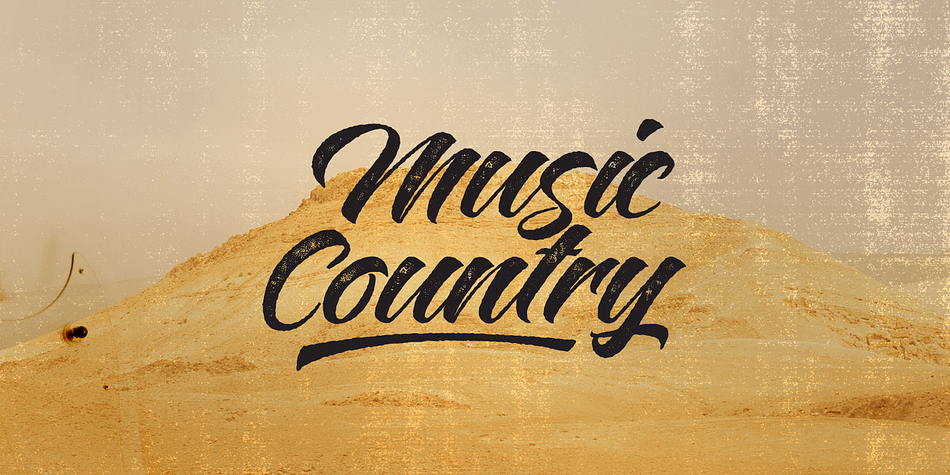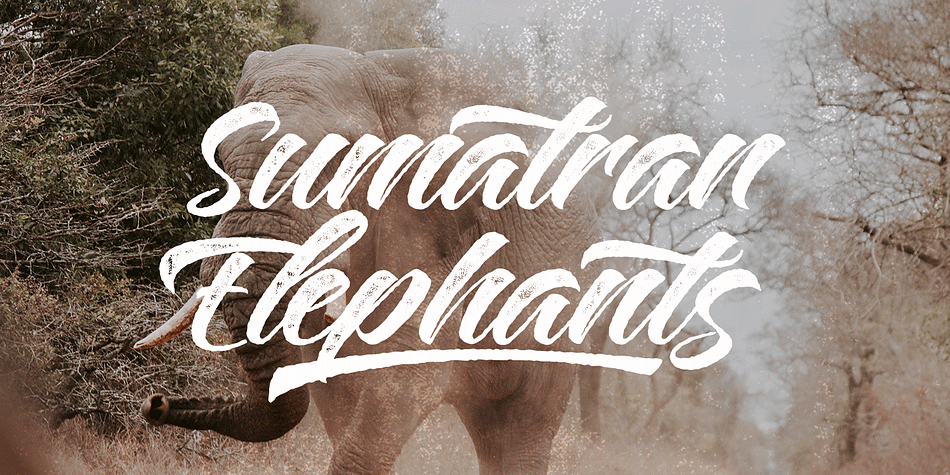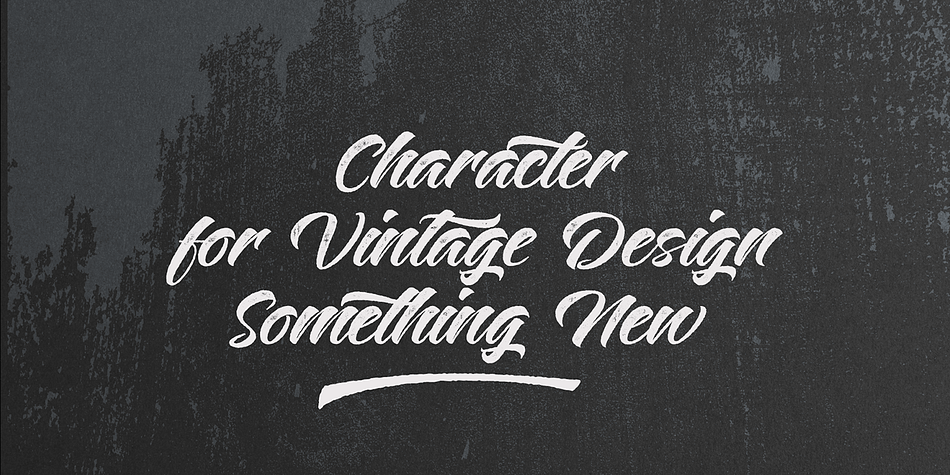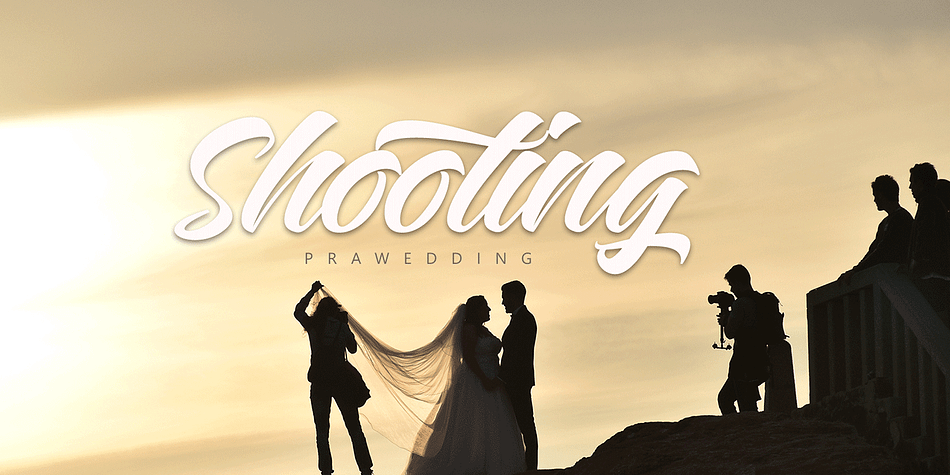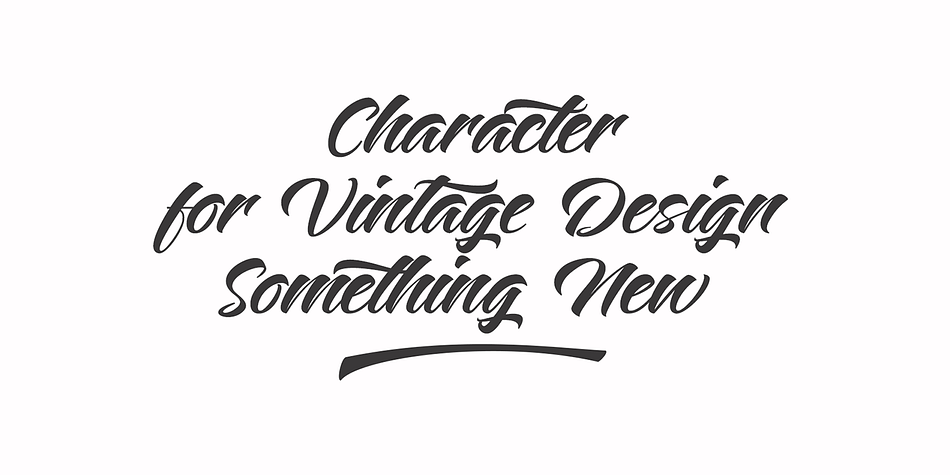
Designed by Roiyani Teungku, Plants is a brush script and script font family. This typeface has two styles and was published by Groens.
Plants Clean & Rough Style
Plants is 2 style fonts, so, brush script that is beautiful and unique, it is a model of modern calligraphy typefaces, in combination with a calligraphy writing style.